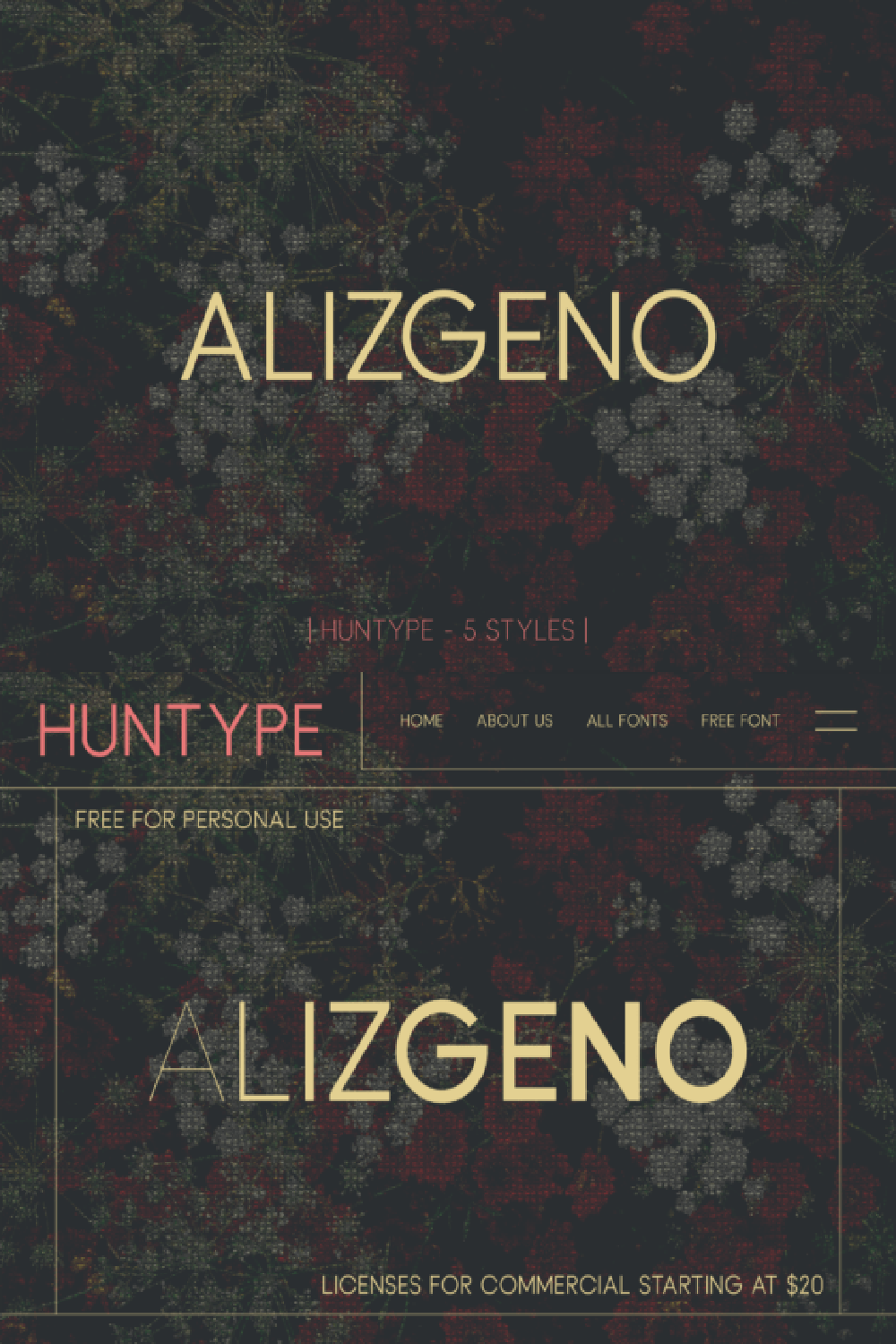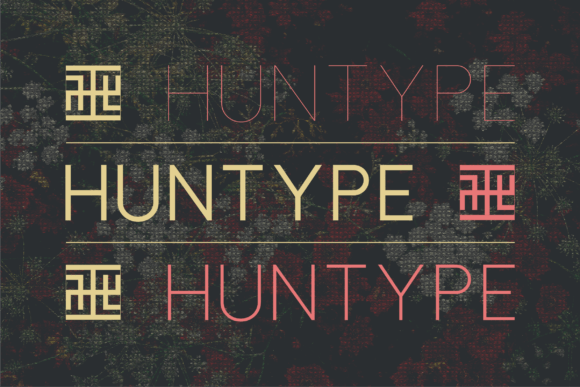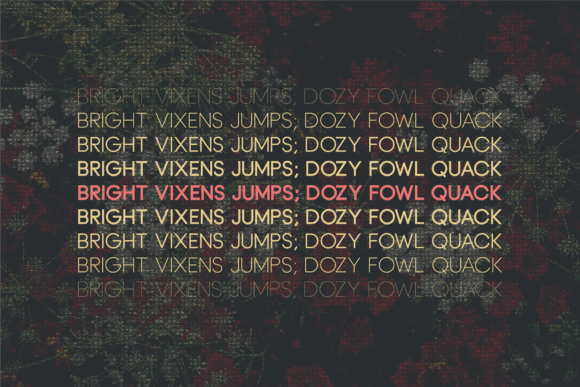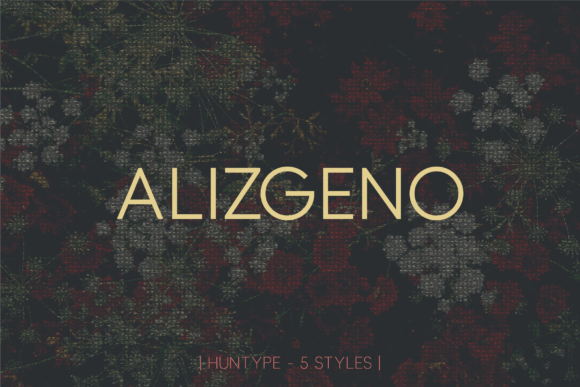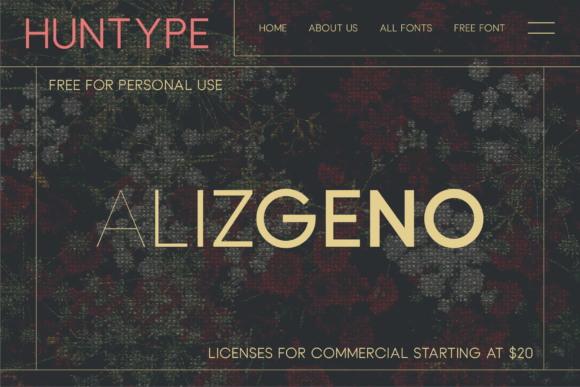
Alizgeno Font: Elegant Sans Serif for Modern Logo Design & Branding
About the Alizgeno Font
Add a touch of class to your work with the Alizgeno Font, a truly exceptional typeface. Introducing Alizgeno Sans Serif Family, a meticulously crafted font family that epitomizes elegance, modernity, and versatility. With its five distinct weights—THIN, LIGHT, REGULAR, BOLD, and BLACK.
Alizgeno Family offers a wide range of creative possibilities, making it the perfect choice for designers and content creators. Whether you’re aiming for a subtle and delicate touch or a bold and impactful statement, this font family’s seamless blend of sophistication and contemporary style ensures your projects will shine with distinction.
Alizgeno Font Usage Examples